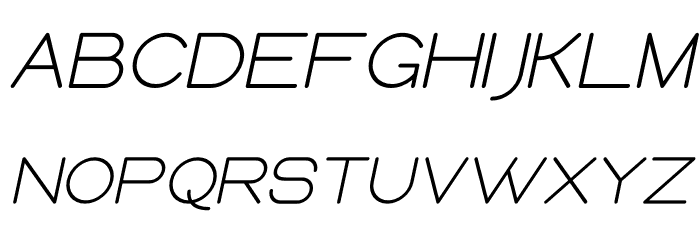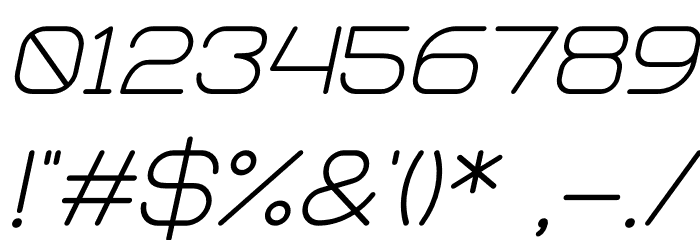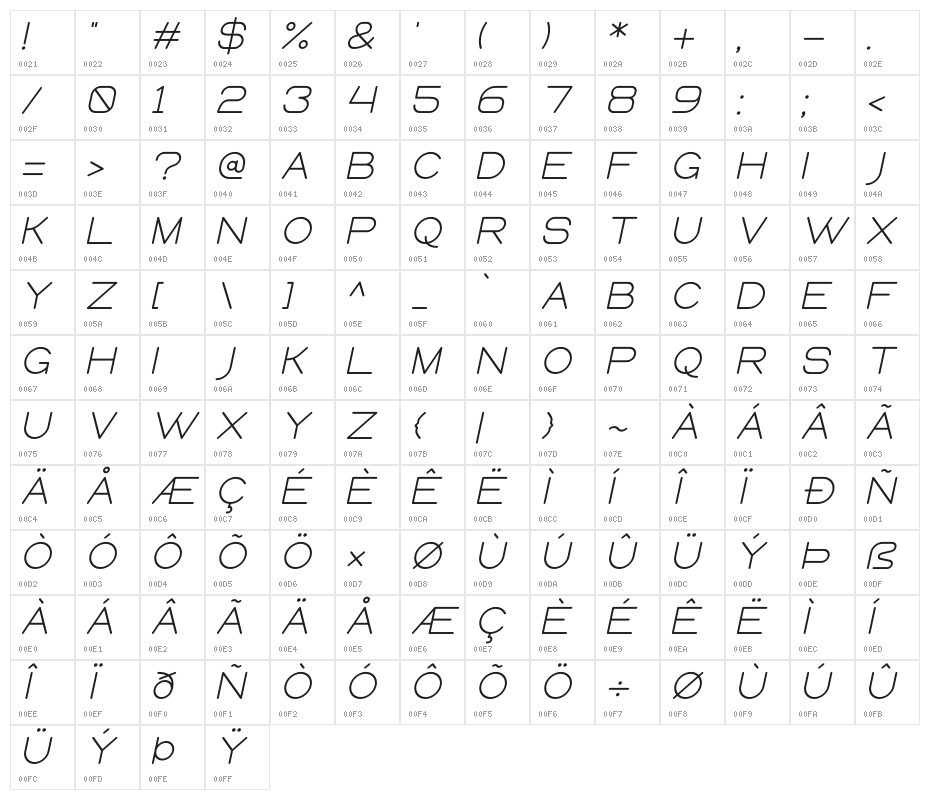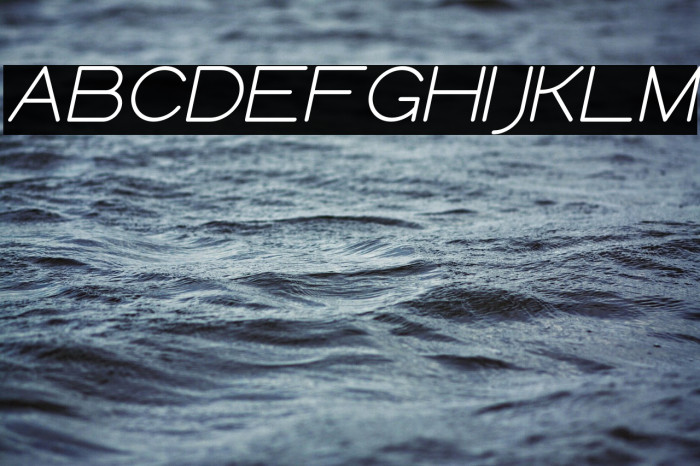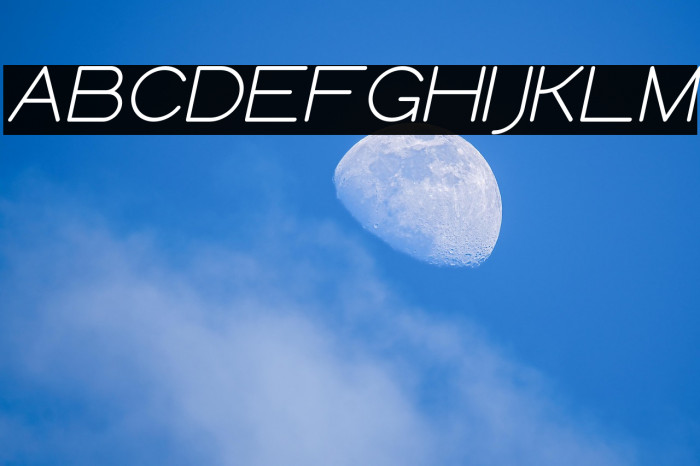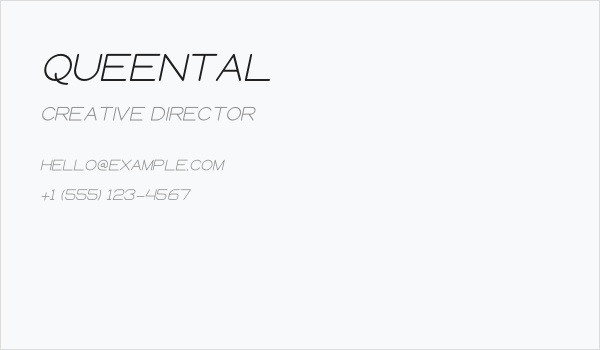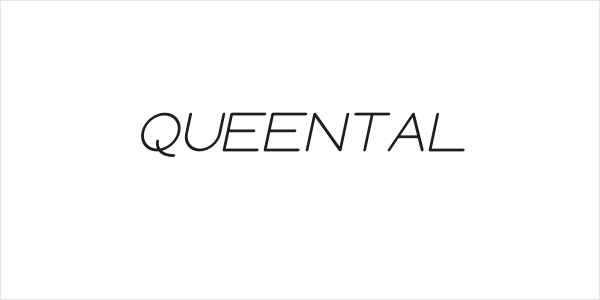
Queental Font
This font features a sleek, modern design with a distinct slant, giving it an italicized appearance. The characters are crafted with clean, smooth lines and a consistent stroke width, contributing to its contemporary aesthetic. The uppercase and lowercase letters maintain a uniform style, while the numerals and special characters complement the overall design. The font's minimalistic approach and subtle elegance make it suitable for a variety of applications, from digital interfaces to print media.
A modern, slanted font with clean lines and a sleek design.
- Font: Queental
- Proposed Projects: Ideal for branding, digital interfaces, modern print media, and stylish advertising campaigns.
- Category: Sans-Serif
- Use Case: Headlines, Logos, Digital interfaces